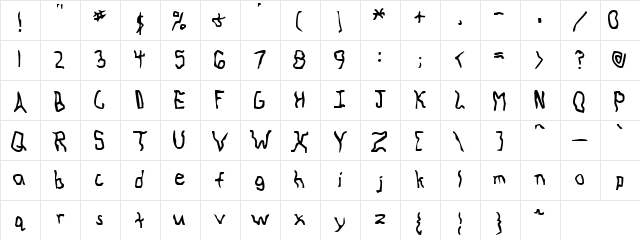
Knocked Around Regular Free Font
Knocked Around Regular
Foundry: UnAuthorized Type
Designer: Ben McGehee
Design Context for Knocked Around
Knocked Around softens its letterforms with rounded terminals, giving it an approachable, friendly quality that works well in consumer-facing and digital contexts.
Well-suited to UI design, mobile interfaces, and any brand that wants approachability without sacrificing clarity.
Font Pairing: Pairs well with a rounded or humanist sans for body copy, maintaining the friendly tone without relying on Knocked Around to carry extended reading.
Pro Tip: Use Knocked Around for UI elements, app interfaces, and anywhere a friendly, approachable tone needs to be maintained without sacrificing clarity.